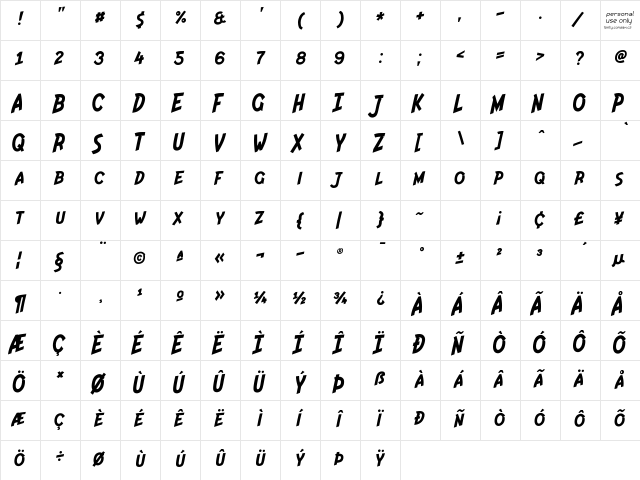
Indiana Jonas Regular
| Foundry | condak.cz |
| Designer | VҴ 鯮dǫ |
Design Context for Indiana Jonas Typeface
Indiana Jonas takes a measured approach to typography — its balanced proportions and neutral character make it a reliable workhorse for both digital and print work.